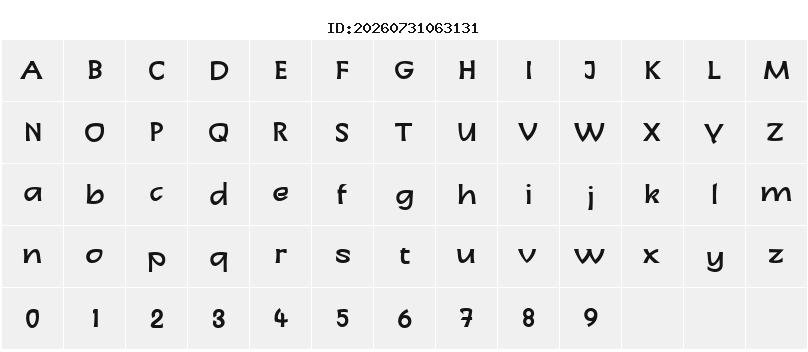
LTCharon SemiBold Preview
• Font Name: LTCharon SemiBold
• Full Font Name: Linotype Charon Semibold
• Designer: Renate Weise
About LTCharon SemiBold.ttf
LTCharon SemiBold.ttf is a modern, elegant sans-serif font designed for ultimate readability and visual harmony. Perfect for branding, headlines, web design, and print materials.